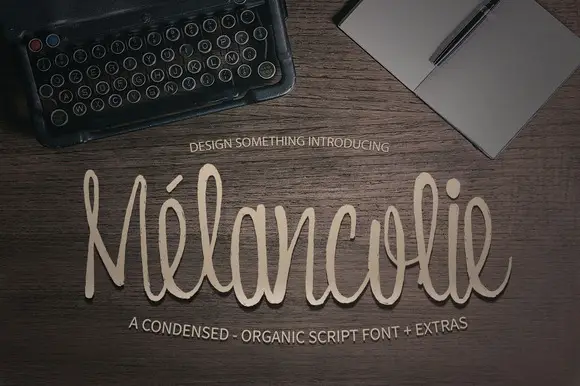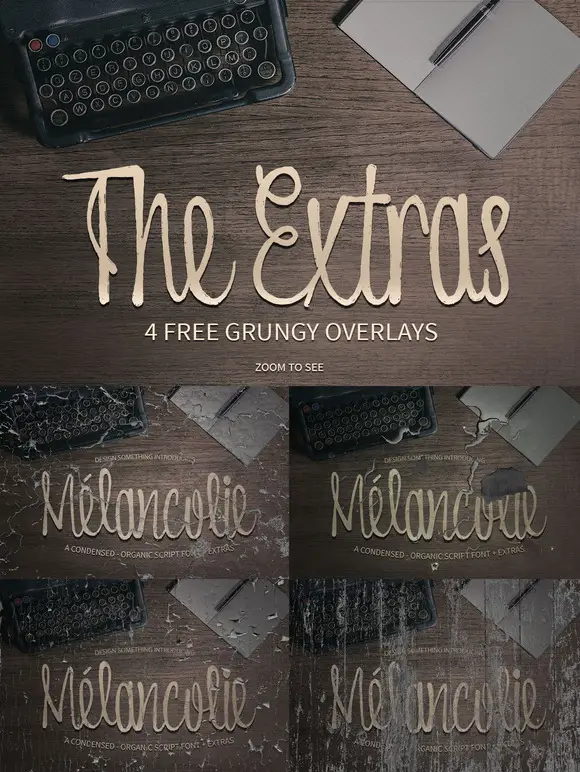
Melancolie is an organic condensed script font with perfectly imperfect edges for naturally blending with many effects. This font is perfect both for titling and paragraphs. Along with this font you will get 4 great overlays for free.
Uppercase
Lowercase
Alternative glyphs
Multilingual support